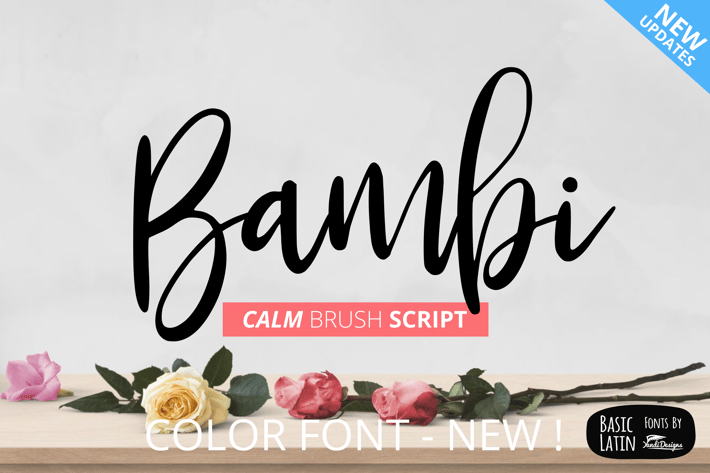
Bambi Fonts
Bambi Font
Modern and calm font , suitable for many project , quotes, logo , doodle, heading , title etc.
Basic Latin (Standard English character , number, punctuation)